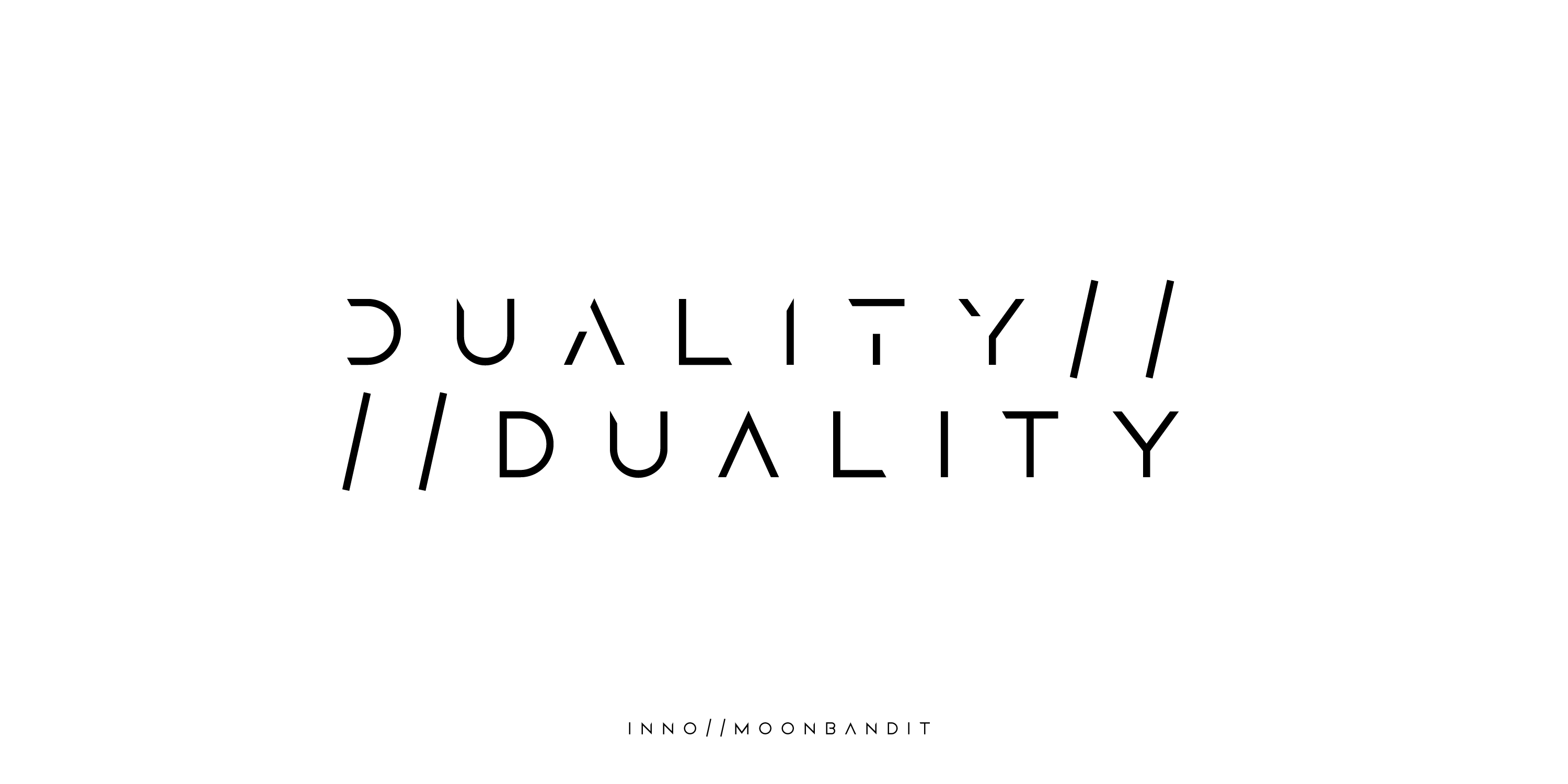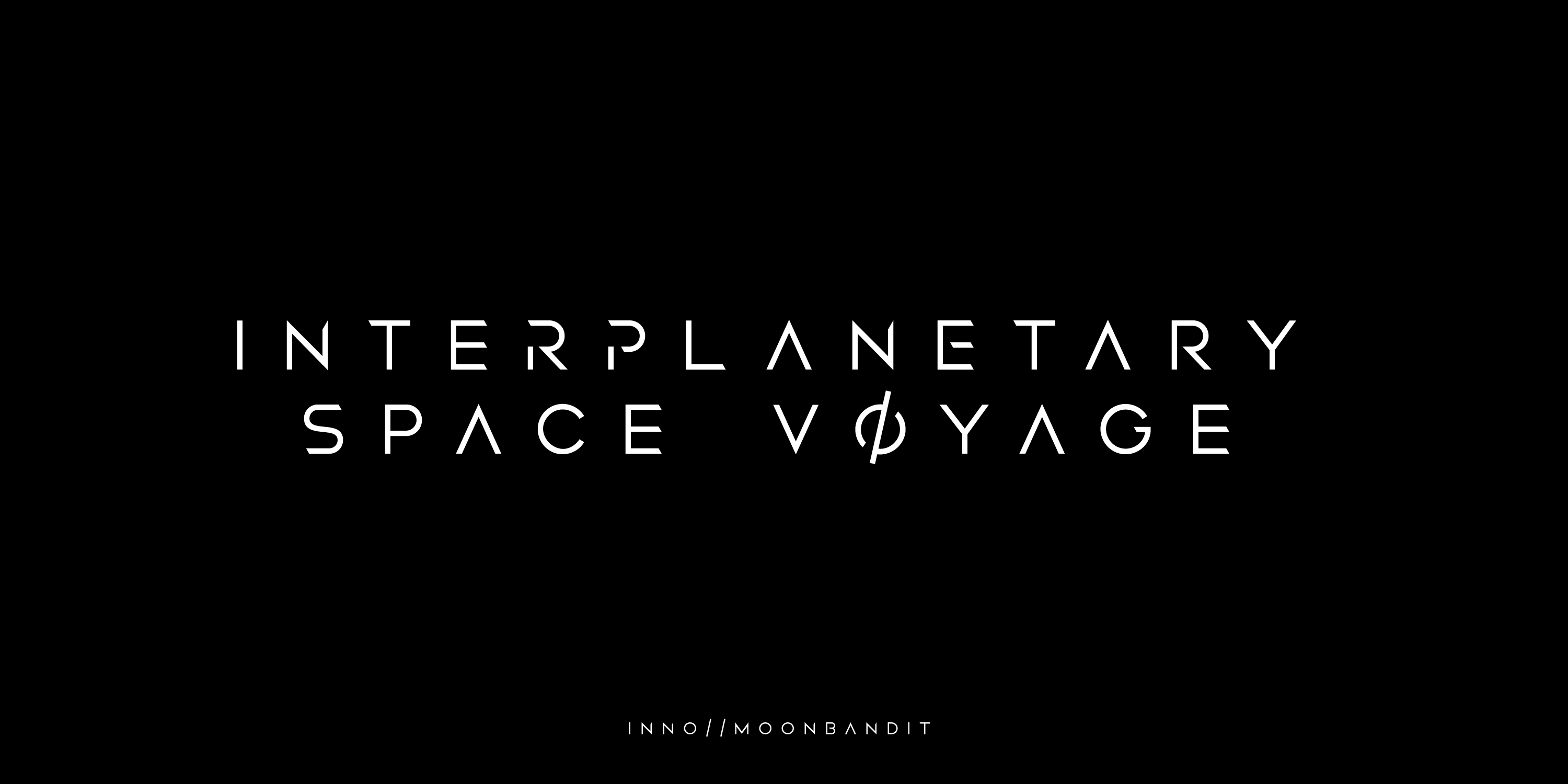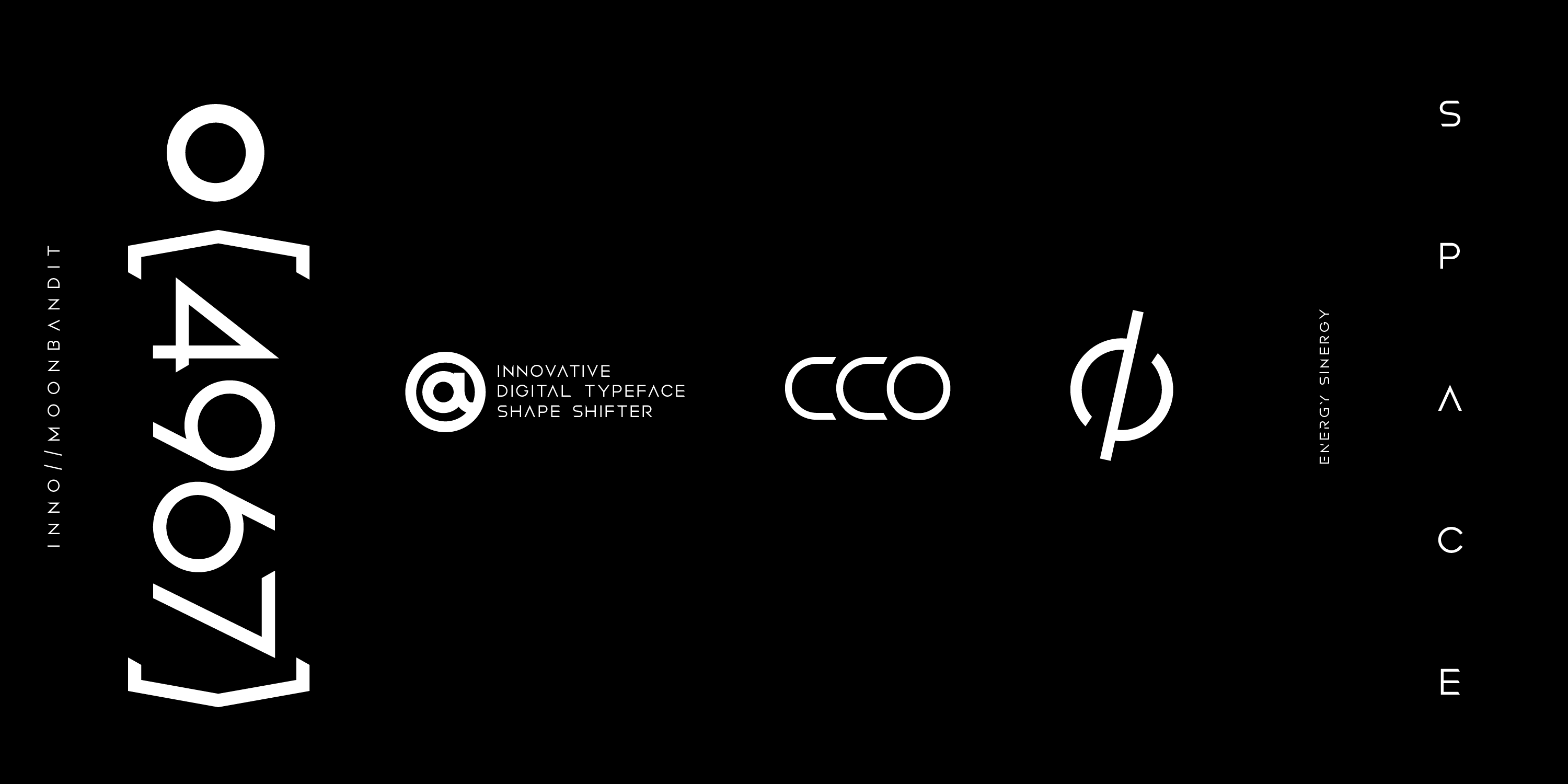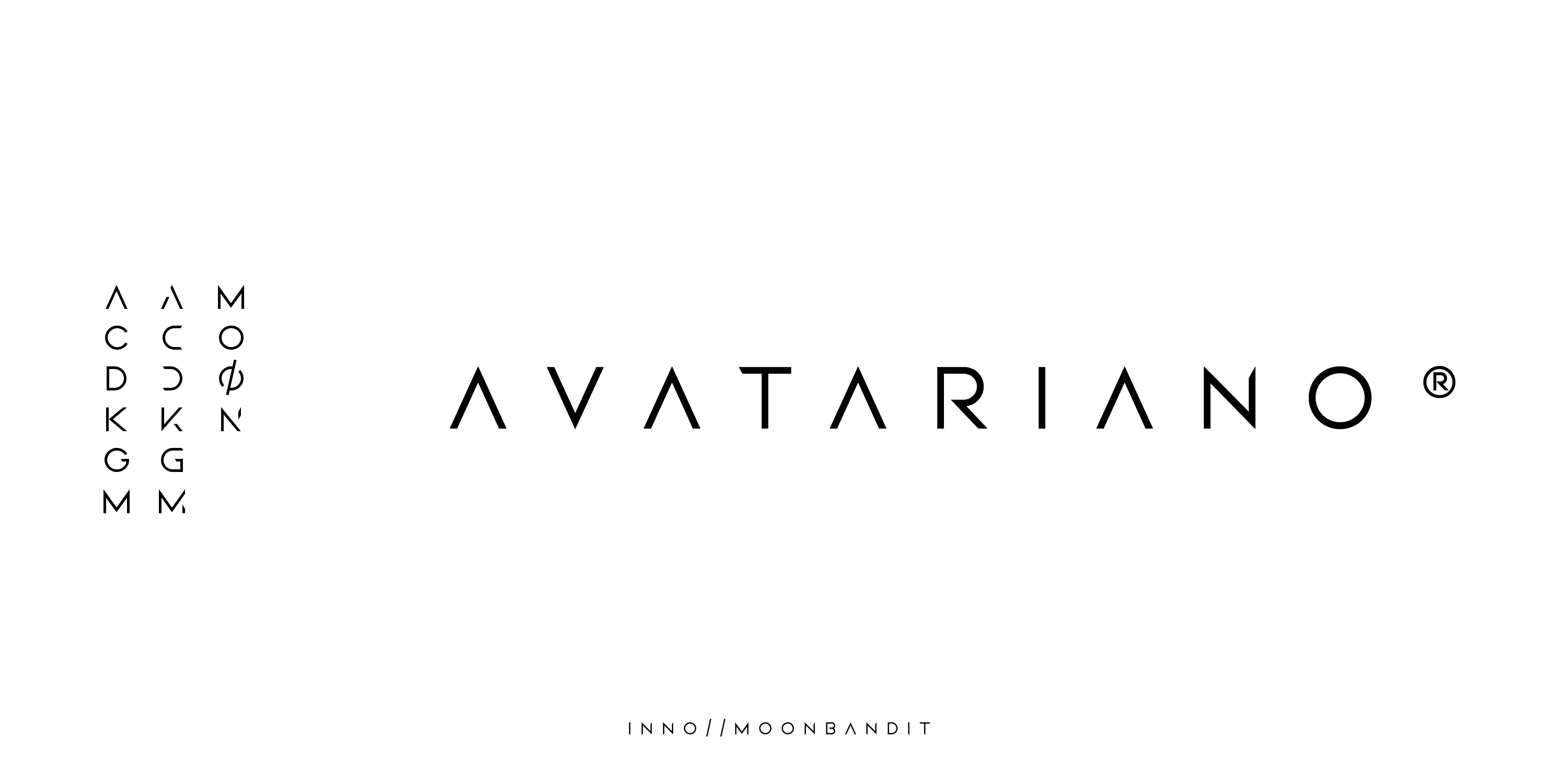
MBF Inno
She uploaded her consciousness into the virtual reality world, seeking eternal life.
Inno is a modern experimental dual font, to access both style is as simple as typing in uppercase or lowercase. This futuristic scifi themed sans serif typeface is perfect for display, headline, titling, poster, cover art and many more.